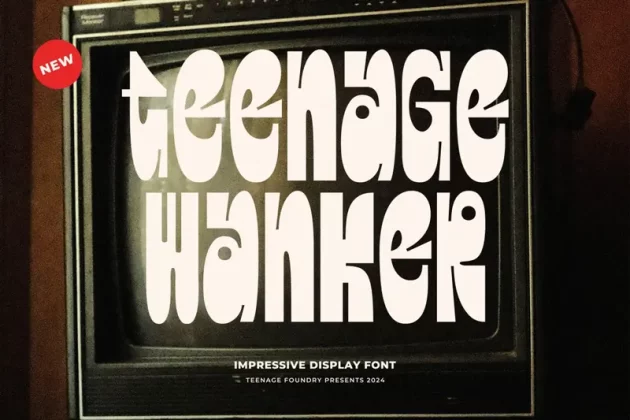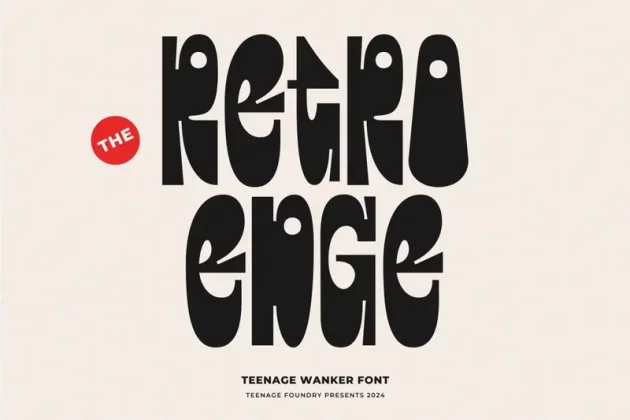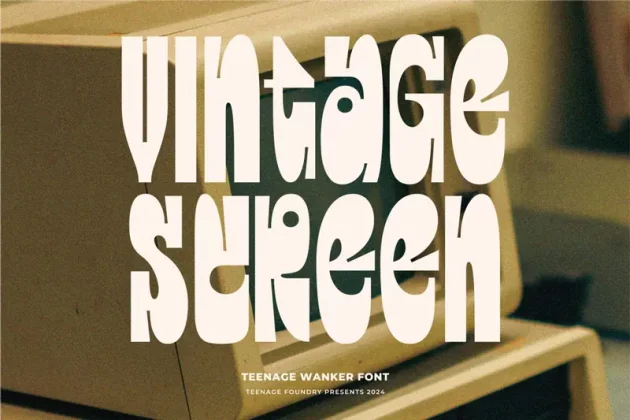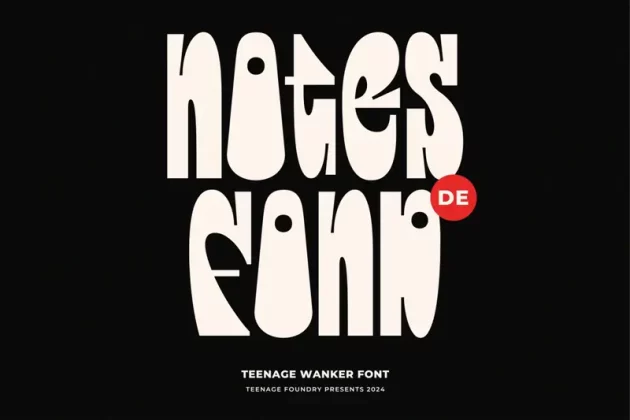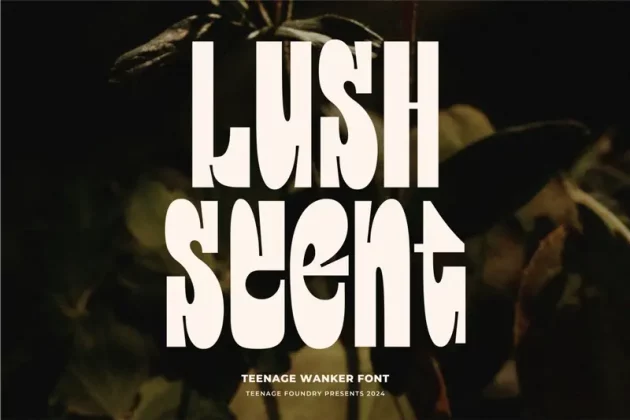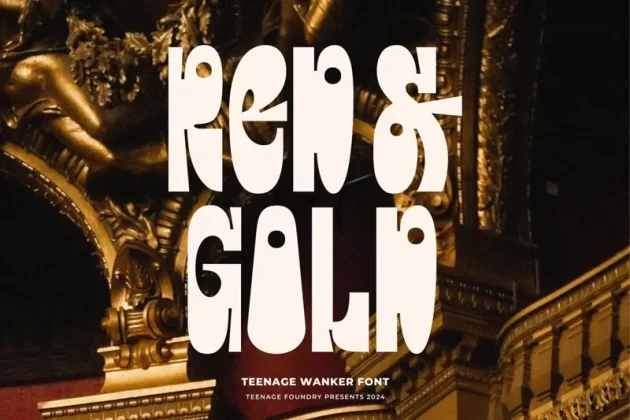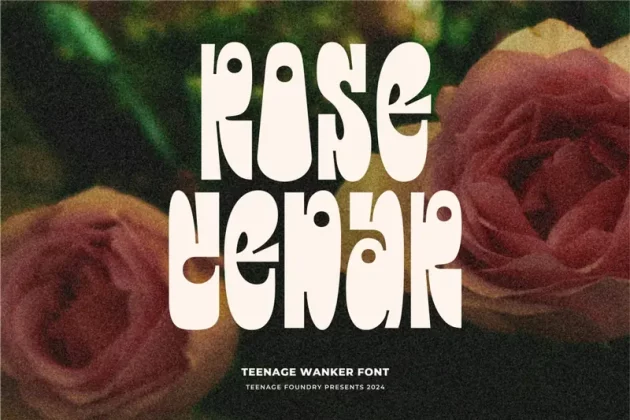
About Teenage Wanker Font
Teenage Wanker – Impressive Display Font By Teenage Foundry
This font is a modern display serif with a random character, a combination of upper and lower case letters which creates a retro and unique impression.
Teenage Wanker is best used for logotypes, titles, headers, signage, clothing designs, invitations, posters, flyers, greeting cards, packaging, book covers, printed quotes, album covers, films, etc.